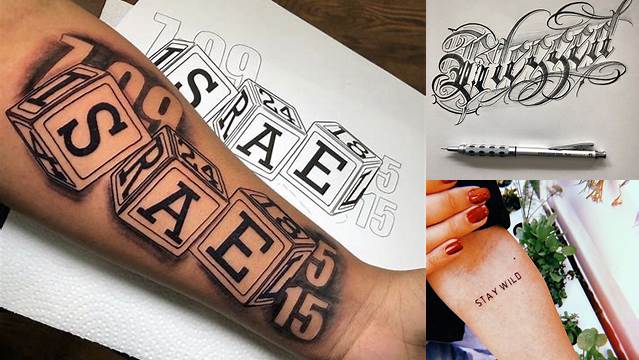
Block Letter Tattoo Fonts: Ideas & Inspiration
Hey guys! Thinking about getting some ink and love the bold look of block letters? You've come to the right place! Block letter tattoo fonts are a classic choice, offering a clean, strong, and timeless aesthetic. Whether you're going for a simple name, a powerful quote, or something more elaborate, the right block letter font can make all the difference. In this article, we're diving deep into the world of tattoo fonts block letters, exploring a ton of ideas, variations, and inspiration to help you find the perfect fit for your next tattoo.
1. Classic Block Letter Tattoo Fonts
Let's start with the basics, shall we? Classic block letter tattoo fonts are your go-to for a reason – they're clean, legible, and always in style. Think of these as the foundation of all block letter styles. These fonts often feature uniform thickness and a straightforward design, making them perfect for names, dates, or short phrases. The beauty of a classic block letter lies in its simplicity. It’s a font that speaks volumes without being overly flashy, making it a versatile choice for various tattoo placements and sizes. Choosing a classic font means opting for a timeless design that will look great for years to come. Whether you're getting your first tattoo or adding to your collection, a classic block letter is always a solid choice. The crisp lines and clear structure ensure that your message is delivered effectively and elegantly. Plus, these fonts are incredibly easy to read, which is a huge bonus when you want your tattoo to be instantly understood. Remember, a well-executed classic block letter tattoo can be just as impactful as a more intricate design.
2. Bold Block Letter Tattoo Styles
Ready to make a statement? Bold block letter tattoo fonts are your answer! These fonts are thicker, heavier, and command attention. They're perfect for larger tattoos where you want the lettering to really pop. Imagine a bold block letter tattoo across your chest or back – it’s powerful, confident, and undeniably cool. Bold fonts have an inherent strength about them, making them ideal for conveying strong messages or declarations. If you're using a single word or a short phrase, a bold font can amplify the impact. These styles often work exceptionally well in black ink, creating a high-contrast look against the skin. But don’t be afraid to experiment with colors or shading to add even more depth. Keep in mind that the size of your tattoo will influence how the bold letters appear. Larger tattoos can accommodate thicker lines, while smaller tattoos might need a slightly thinner bold font to prevent the letters from blurring together over time. When you want your tattoo to be seen and remembered, a bold block letter style is the way to go. It's a fantastic option for anyone who wants their ink to make a statement.
3. Narrow Block Letter Tattoo Designs
Not all block letters need to be wide and imposing. Narrow block letter tattoo designs offer a sleek and modern alternative. These fonts are characterized by their taller and thinner letterforms, making them ideal for fitting longer words or phrases into a smaller space. Think about using a narrow block letter font to ink a meaningful quote along your spine or ribs – it's a subtle yet striking effect. The elegance of a narrow font lies in its ability to convey information without taking up too much real estate on your skin. These styles often have a more refined appearance, making them a great choice for those who prefer a minimalist aesthetic. Narrow block letters can also be surprisingly versatile. They work well in both black and colored inks, and they can be easily combined with other tattoo elements, such as symbols or illustrations. However, it's important to consider the legibility of your tattoo when choosing a narrow font. If the letters are too close together or too thin, they might become difficult to read, especially as the tattoo ages. Your tattoo artist can help you select the perfect size and spacing to ensure your narrow block letter tattoo looks fantastic for years to come. If you’re going for a sophisticated and contemporary vibe, narrow block letters might just be your perfect match.
4. Wide Block Letter Tattoo Styles
On the flip side, wide block letter tattoo styles are all about making a big impact. These fonts feature broader letterforms, creating a bold and visually striking effect. They're perfect for shorter words or initials, where the width can really enhance the overall design. Imagine using a wide block letter font for your initials on your wrist or a single powerful word across your shoulders. The strength of a wide block letter comes from its solid, grounded presence. These fonts tend to exude confidence and stability, making them a popular choice for those who want their tattoo to feel substantial. Wide block letters also offer plenty of room for creativity. You can fill them with intricate patterns, shading, or even colors to create a unique and eye-catching design. However, keep in mind that wide letters can take up a lot of space, so it’s important to plan your tattoo placement carefully. Consider the contours of your body and how the letters will flow with your natural shape. A skilled tattoo artist can help you determine the optimal size and placement for your wide block letter tattoo. When you want your tattoo to have a bold and undeniable presence, wide block letters are the way to go.
5. Outline Block Letter Tattoo Fonts
Looking for something a little different? Outline block letter tattoo fonts offer a stylish and unique twist on the classic block letter design. These fonts feature the shape of the letters outlined in ink, with the inside left blank or filled with color or shading. It’s a great way to create a visually interesting tattoo without the heavy commitment of solid black ink. Outline block letters have a lighter, more airy feel compared to their solid counterparts. They can add a touch of sophistication and elegance to your tattoo, making them a versatile choice for various styles and placements. The beauty of an outline font is that it allows you to play with negative space. The contrast between the outlined letters and your skin creates a striking visual effect that can be incredibly eye-catching. You can also use the negative space to incorporate other design elements, such as patterns or textures, within the letters themselves. Outline block letters are a fantastic option for those who want a tattoo that stands out without being too overwhelming. They’re also a great choice for individuals with lighter skin tones, as the outline will create a clear and defined shape. If you're seeking a tattoo that’s both stylish and unique, outline block letters are definitely worth considering.
6. Shaded Block Letter Tattoo Designs
Adding shading to block letter tattoos can take them to the next level. Shading gives the letters depth and dimension, making them appear more three-dimensional and visually interesting. It’s a fantastic technique for adding a touch of realism or a subtle artistic flair to your tattoo. Imagine block letters that look like they're popping off your skin – that's the power of shading. Shading can be achieved using various techniques, from subtle gradients to bold, contrasting shadows. The type of shading you choose will depend on the overall style you're aiming for. Soft shading can create a more delicate and refined look, while bolder shading can add a dramatic and impactful effect. One popular technique is to shade the edges of the letters, creating the illusion of depth and highlighting the letterforms. You can also use shading to create a sense of texture or to mimic the look of metal or stone. The possibilities are endless! Shading can also help to enhance the legibility of your tattoo, especially if you’re using a more intricate font or have a lot of detail in your design. By adding shadows and highlights, you can make the letters stand out more clearly against your skin. If you want to elevate your block letter tattoo and give it a truly unique look, shading is a technique you should definitely explore.
7. Block Letter Tattoo Fonts with Serifs
Serifs are the little decorative strokes that extend from the ends of letters, and incorporating them into block letter tattoos can add a touch of classic elegance. Serifs can transform a simple block letter into something more sophisticated and refined. Think of fonts like Times New Roman – the serifs give the letters a formal and traditional feel. When used in tattoos, serifs can add a touch of timeless beauty. Block letter fonts with serifs are a great choice for those who want a tattoo that feels both classic and contemporary. They can be used to create a variety of different styles, from vintage-inspired designs to modern, minimalist pieces. The serifs themselves can range from subtle and delicate to bold and pronounced, allowing you to customize the font to suit your personal taste. One thing to consider when choosing a serif font for your tattoo is the size and placement of the letters. Serifs can be intricate details, so it’s important to ensure that they will be clearly visible and legible, especially if the tattoo is small. Your tattoo artist can help you select a serif font that will work well with your design and placement. If you’re looking for a block letter tattoo with a touch of sophistication and timeless appeal, consider incorporating serifs into your font choice.
8. Block Letter Tattoo Fonts without Serifs
On the other hand, block letter fonts without serifs offer a more modern and minimalist aesthetic. These fonts, also known as sans-serif fonts, are clean, simple, and highly legible. They’re a popular choice for contemporary tattoo designs that prioritize clarity and simplicity. Think of fonts like Arial or Helvetica – these sans-serif fonts are widely used for their clean lines and easy readability. In the world of tattoo fonts block letters, sans-serif styles can create a striking and impactful design. The absence of serifs gives these fonts a more streamlined and contemporary feel. They’re a great choice for those who prefer a clean and uncluttered look. Sans-serif block letters are also incredibly versatile. They work well in a variety of sizes and placements, and they can be easily combined with other design elements, such as symbols or illustrations. The simplicity of these fonts also makes them a great choice for those who want their tattoo to be easily understood at a glance. One thing to consider when choosing a sans-serif font is the overall weight and thickness of the letters. Thicker letters will create a bolder and more impactful design, while thinner letters will have a more delicate and refined appearance. Your tattoo artist can help you select the perfect weight for your sans-serif block letter tattoo. If you’re drawn to clean lines, modern aesthetics, and easy readability, sans-serif block letter fonts might be the perfect choice for your next tattoo.
9. Gothic Block Letter Tattoo Styles
For a darker and more dramatic look, gothic block letter tattoo styles are a fantastic choice. These fonts are characterized by their bold, angular lines and intricate details, evoking a sense of mystery and medieval flair. Think of the classic Old English font – its dramatic curves and sharp points are a hallmark of gothic lettering. In the world of tattoos, gothic block letters can create a powerful and striking design. Gothic fonts have a strong visual presence and are often associated with strength, rebellion, and individuality. They’re a popular choice for those who want their tattoo to make a bold statement. Gothic block letters can be used for a variety of different tattoo designs, from names and initials to quotes and meaningful phrases. They work particularly well for larger tattoos, where the intricate details of the font can be fully appreciated. When choosing a gothic font for your tattoo, it’s important to consider the legibility of the letters. Some gothic fonts can be quite ornate and difficult to read, especially if the tattoo is small. Your tattoo artist can help you select a gothic font that is both visually appealing and easy to decipher. If you’re drawn to the dramatic and mysterious, gothic block letter styles can be an excellent choice for your next tattoo.
10. Modern Block Letter Tattoo Fonts
Modern block letter tattoo fonts are all about sleek lines, geometric shapes, and contemporary aesthetics. These fonts often feature unique letterforms and innovative designs that push the boundaries of traditional block lettering. They’re a perfect choice for those who want a tattoo that feels fresh, stylish, and on-trend. Think of fonts that incorporate clean lines, sharp angles, and a sense of futuristic design. Modern block letters can range from minimalist and understated to bold and expressive, offering a wide range of options for your tattoo. One of the key characteristics of modern block letters is their emphasis on simplicity and clarity. These fonts often prioritize legibility, making them a great choice for those who want their tattoo to be easily read at a glance. However, modern fonts can also incorporate unique design elements that set them apart from more traditional styles. This might include unusual letter shapes, geometric accents, or unexpected negative space. When choosing a modern block letter font for your tattoo, it’s important to consider the overall style and aesthetic you’re aiming for. Do you want a tattoo that feels minimalist and understated, or something that’s more bold and expressive? Your tattoo artist can help you select a font that perfectly matches your vision. If you’re looking for a tattoo that’s stylish, contemporary, and a little bit different, modern block letter fonts are definitely worth exploring.
11. Vintage Block Letter Tattoo Styles
For a touch of nostalgia and old-school charm, vintage block letter tattoo styles are the way to go. These fonts evoke the look and feel of classic signage, vintage posters, and retro advertisements. They’re perfect for those who appreciate timeless design and want a tattoo with a sense of history. Think of fonts that incorporate distressed textures, aged effects, and classic letterforms from decades past. Vintage block letters often have a slightly weathered or worn appearance, giving them a unique and authentic feel. They can range from bold and industrial styles to more elegant and refined designs, offering a wide range of options for your tattoo. One of the key characteristics of vintage block letters is their ability to evoke a sense of nostalgia and sentimentality. These fonts can transport you back to a different era, adding a touch of character and personality to your tattoo. They’re a great choice for those who want their ink to tell a story or pay homage to a particular time period. When choosing a vintage block letter font for your tattoo, it’s important to consider the overall style and aesthetic you’re aiming for. Do you want a tattoo that feels rugged and industrial, or something that’s more elegant and refined? Your tattoo artist can help you select a font that perfectly captures the vintage vibe you’re after. If you’re drawn to the charm and character of yesteryear, vintage block letter styles can be a fantastic choice for your next tattoo.
12. Outline vs. Solid Block Letter Tattoos
Choosing between outline and solid block letter tattoos is a big decision that can significantly impact the look and feel of your ink. Both styles have their own unique advantages and aesthetics, so it’s important to weigh your options carefully before making a choice. Outline block letters offer a lighter, more airy feel. They create a subtle yet striking effect, allowing the negative space of your skin to become part of the design. This can be a great option for those who want a tattoo that’s visually interesting without being too overwhelming. Outline tattoos can also be a good choice for those with lighter skin tones, as the outline will create a clear and defined shape. Solid block letters, on the other hand, are bolder and more impactful. They offer a strong visual presence and can make a powerful statement. Solid tattoos are a classic choice for those who want their ink to really stand out. They can also be a good option for those with darker skin tones, as the solid fill will create a strong contrast against the skin. Ultimately, the choice between outline and solid block letter tattoos comes down to personal preference. Consider the overall style you’re aiming for, the placement of your tattoo, and your skin tone. Your tattoo artist can also provide valuable advice and help you make the best decision for your unique situation. Whether you go for the subtle elegance of an outline or the bold impact of a solid fill, block letter tattoos are a timeless and versatile choice.
13. Block Letter Tattoo Placement Ideas
Where you place your block letter tattoo can be just as important as the font you choose. The placement can affect the overall look and feel of your ink, as well as how easily it’s seen and read. Let's explore some popular placement ideas: Forearm tattoos are a classic choice for block letters. They’re easily visible and offer a good amount of space for longer words or phrases. Wrist tattoos are another popular option, especially for smaller names or initials. However, keep in mind that wrist tattoos can fade more quickly due to frequent washing and movement. Back tattoos, particularly across the upper back or shoulders, are a great choice for larger block letter designs. This placement offers a wide canvas and allows for intricate shading and detailing. Chest tattoos can be a bold and impactful choice, especially for single words or short phrases. However, chest tattoos can be more painful due to the sensitivity of the area. Rib tattoos are a more discreet option that can be easily concealed. They’re a good choice for longer quotes or phrases, but can also be more painful due to the proximity to the ribs. Leg tattoos, whether on the thigh, calf, or ankle, offer a versatile placement option. Block letters can look great on the leg, especially when incorporated into a larger design. Ultimately, the best placement for your block letter tattoo will depend on your personal style, the size and design of your tattoo, and your pain tolerance. Consider the message you want to convey and how you want your ink to be perceived. Your tattoo artist can help you explore different placement options and choose the perfect spot for your block letter tattoo.
14. Combining Block Letters with Other Tattoo Elements
One of the best ways to create a truly unique block letter tattoo is to combine the lettering with other design elements. This can add visual interest, depth, and personal meaning to your ink. Think about incorporating symbols, images, or even other font styles into your block letter design. Here are a few ideas to get you started: Adding a floral element, such as roses or lilies, can soften the boldness of block letters and create a more feminine or romantic feel. Incorporating geometric shapes, such as triangles or circles, can add a modern and artistic touch to your block letter tattoo. Combining block letters with a more script-style font can create an interesting contrast and add visual complexity to your design. Using a meaningful symbol, such as a heart, star, or cross, can add personal significance to your block letter tattoo. Adding shading or texture to the letters can create depth and dimension, making the tattoo appear more three-dimensional. The possibilities are endless when it comes to combining block letters with other tattoo elements. The key is to find a balance between the lettering and the other design elements, ensuring that they complement each other and create a cohesive and visually appealing tattoo. Work closely with your tattoo artist to brainstorm ideas and create a design that’s truly unique and meaningful to you.
15. Block Letter Tattoo Ideas for Names
Getting a name tattooed in block letters is a classic and timeless choice. Whether it’s your own name, the name of a loved one, or the name of someone who’s inspired you, block letters offer a bold and legible way to honor them. There are many creative ways to incorporate names into your tattoo fonts block letters. Consider using a bold block letter font for a strong and impactful look. This can be a great choice for larger name tattoos, such as those across the chest or back. Opt for a more delicate block letter font, such as a narrow or outlined style, for a more subtle and elegant look. This can be a good choice for smaller name tattoos, such as those on the wrist or ankle. Incorporate a meaningful symbol or image alongside the name. For example, you could add a flower, heart, or star to personalize the design. Use shading or texture to add depth and dimension to the letters. This can make the name appear more three-dimensional and visually interesting. Consider the placement of the name tattoo. Forearms, wrists, backs, chests, and legs are all popular options. Think about the size and style of the tattoo, as well as your personal preferences, when choosing a placement. Ultimately, the best block letter tattoo idea for a name is one that’s meaningful and personal to you. Work closely with your tattoo artist to create a design that you’ll love for years to come.
16. Quote Tattoos in Block Letters
Quotes can be powerful and meaningful, and using block letter tattoo fonts to ink them can make them even more impactful. Whether it’s a favorite saying, an inspiring message, or a personal motto, block letters offer a bold and legible way to display your chosen words. Here are some tips for designing quote tattoos in block letters: Choose a font that complements the tone and style of the quote. A bold, gothic font might be a good choice for a powerful quote, while a more delicate, sans-serif font might be better suited for an inspiring message. Consider the length of the quote when choosing a font and placement. Longer quotes will require more space, so you might need to opt for a smaller font or a larger placement area, such as the back or chest. Think about breaking up the quote into multiple lines to improve readability and create a more visually appealing design. Use different font sizes or styles to emphasize certain words or phrases within the quote. This can help to draw attention to the most important parts of the message. Incorporate symbols or images that relate to the meaning of the quote. This can add depth and personal significance to the tattoo. Pay attention to the spacing between letters and words. Proper spacing is essential for ensuring that the quote is easy to read and understand. Quote tattoos in block letters can be a powerful way to express your beliefs, values, and passions. Work closely with your tattoo artist to create a design that’s both meaningful and visually striking.
17. Initials and Monogram Block Letter Tattoos
Initials and monograms are a classic and understated choice for tattoo fonts block letters. They offer a subtle yet stylish way to represent your name, the name of a loved one, or a meaningful combination of letters. Block letters are particularly well-suited for initials and monograms, as they provide a clean and legible design that’s easy to read and understand. Here are some ideas for designing initial and monogram tattoos in block letters: Choose a font that reflects your personal style. A bold block letter font can create a strong and impactful look, while a more delicate font can add a touch of elegance. Consider the placement of the initials or monogram. Wrists, ankles, and the back of the neck are all popular choices for smaller initial tattoos. Use different font sizes or styles for the different letters within the monogram. This can create visual interest and help to distinguish the letters. Incorporate decorative elements, such as swirls, flourishes, or geometric shapes, to add a touch of personality to the design. Use shading or texture to add depth and dimension to the letters. This can make the initials or monogram appear more three-dimensional and visually interesting. Think about the spacing between the letters. Proper spacing is essential for ensuring that the initials or monogram are easy to read and understand. Initials and monogram tattoos in block letters can be a timeless and elegant way to represent yourself or someone you care about. Work closely with your tattoo artist to create a design that’s both meaningful and visually appealing.
18. Block Letter Tattoo Fonts for Dates
Dates are another popular choice for tattoo fonts block letters. Whether it’s a birth date, anniversary, or a significant historical event, block letters offer a clear and concise way to mark a special occasion. Block letter tattoos for dates are a great way to commemorate important moments in your life. Here are some tips for designing date tattoos in block letters: Choose a font that’s easy to read and understand. Clear and simple block letter fonts are ideal for date tattoos. Consider the format of the date. You can use numerals, Roman numerals, or even spell out the month in letters. Think about the placement of the date tattoo. Wrists, ankles, and ribs are all popular choices for smaller date tattoos. Incorporate other design elements, such as symbols or images, that relate to the meaning of the date. For example, you could add a flower for a birth date or a ring for an anniversary. Use shading or texture to add depth and dimension to the numerals or letters. This can make the date tattoo appear more visually interesting. Consider the spacing between the numerals or letters. Proper spacing is essential for ensuring that the date is easy to read and understand. Block letter tattoos for dates can be a meaningful way to remember special moments in your life. Work closely with your tattoo artist to create a design that’s both personal and visually appealing.
19. Small Block Letter Tattoos
Small block letter tattoos can be incredibly impactful, even though they are tiny. They are perfect for those who want a subtle yet meaningful piece of ink. These tattoos often consist of a single word, initial, or date, making them ideal for discreet placement. When considering a small block letter tattoo, font choice is crucial. Opt for a font that remains legible even at a small size. Simple sans-serif fonts often work best, as they have clean lines and avoid intricate details that can blur together. Placement is also key. Popular spots for small block letter tattoos include the wrist, ankle, behind the ear, and fingers. These locations are easily visible but can also be covered if desired. Despite their size, small block letter tattoos can carry significant weight. They can serve as a reminder of a personal mantra, a tribute to a loved one, or a symbol of an important life event. The simplicity of block letters lends itself well to this format, allowing the message to shine through without overwhelming the space. Whether you choose a bold statement or a subtle reminder, a small block letter tattoo can be a powerful form of self-expression. It’s a timeless design that will continue to resonate with you for years to come.
20. Large Block Letter Tattoos
On the opposite end of the spectrum, large block letter tattoos make a bold statement. These tattoos command attention and are perfect for those who want their ink to be a focal point. Large block letters are ideal for displaying impactful words, phrases, or even entire quotes. When opting for a large block letter tattoo, placement is paramount. The back, chest, and thighs offer ample space for these designs. Consider the contours of your body and how the letters will flow with your natural shape. A skilled tattoo artist can help you determine the optimal size and placement to ensure your tattoo looks balanced and visually appealing. Font choice is also important. Bold, thick block letters work best for large tattoos, as they create a strong visual presence. Shading and detailing can further enhance the impact, adding depth and dimension to the design. Large block letter tattoos are not for the faint of heart. They are a commitment to a message or aesthetic that you want to prominently display. However, when executed well, these tattoos can be incredibly striking and expressive. They serve as a powerful form of self-expression, allowing you to wear your thoughts and beliefs on your skin.
21. Block Letter Tattoo Fonts for Men
Block letter tattoos are a popular choice for men, offering a masculine and timeless aesthetic. The strong, clean lines of block letters lend themselves well to a variety of styles, from classic and understated to bold and edgy. When choosing block letter fonts for men's tattoos, consider the overall message and style you want to convey. Bold, sans-serif fonts often create a powerful and assertive look, while more refined fonts can add a touch of sophistication. Placement can also play a role in the masculinity of the tattoo. Popular spots for men's block letter tattoos include the upper back, chest, forearms, and biceps. These locations offer ample space for larger designs and showcase the ink effectively. Block letter tattoos can be used to display names, dates, quotes, or any other meaningful words or phrases. The versatility of block letters allows for endless customization, ensuring that your tattoo is a true reflection of your personality and beliefs. Whether you opt for a simple and minimalist design or a more intricate and detailed piece, block letter tattoos are a timeless choice for men. They are a symbol of strength, resilience, and individuality, making them a powerful form of self-expression.
22. Block Letter Tattoo Fonts for Women
While often associated with masculinity, block letter tattoos can also be a beautiful and empowering choice for women. The key is to choose a font and design that complements your personal style and aesthetic. When selecting block letter fonts for women's tattoos, consider incorporating softer elements or more delicate designs. For example, pairing block letters with floral motifs or using a thinner, more refined font can create a feminine and elegant look. Placement can also play a role in the overall aesthetic. Popular spots for women's block letter tattoos include the wrists, ankles, ribs, and upper back. These locations offer a balance between visibility and discretion, allowing you to showcase your ink while maintaining a sense of elegance. Block letter tattoos can be used to display names, quotes, or any other meaningful words or phrases. The versatility of block letters allows for a wide range of creative expression, ensuring that your tattoo is a true reflection of your personality. Whether you opt for a bold statement or a subtle reminder, block letter tattoos can be a powerful form of self-expression for women. They are a symbol of strength, resilience, and individuality, making them a timeless and meaningful choice.
23. Block Letter Fonts in Different Languages
Block letter tattoos aren't limited to just English! Exploring different languages opens up a whole new world of possibilities for your ink. Whether you want to honor your heritage, express your love for a particular culture, or simply find a more unique way to say something meaningful, using a different language can add a special touch to your block letter tattoo. When choosing a language, consider the overall aesthetic and meaning you want to convey. Some languages, like Latin or Greek, have a classic and timeless feel, while others, like Japanese or Arabic, offer a more exotic and artistic flair. It’s crucial to ensure the accuracy of your chosen phrase or word. Double-check the spelling and grammar with a native speaker or a reliable online resource to avoid any embarrassing mistakes. Font choice is also important when working with different languages. Not all fonts are compatible with all character sets, so you’ll need to find a font that supports the language you’ve chosen. Consult with your tattoo artist to ensure the font you select is legible and aesthetically pleasing in the target language. Block letter tattoos in different languages can be a beautiful and meaningful way to express your identity and connect with your heritage. They add a layer of depth and complexity to your ink, making it truly unique and personal.
24. The Importance of a Good Tattoo Artist for Block Letters
When it comes to block letter tattoos, choosing the right tattoo artist is absolutely crucial. The clean lines and precise shapes of block letters demand a high level of skill and attention to detail. An experienced tattoo artist can make the difference between a stunning piece of art and a disappointing mess. Look for an artist who has a strong portfolio showcasing their work with lettering and linework. Pay close attention to the consistency of the lines, the spacing between the letters, and the overall symmetry of the designs. A skilled artist will have a steady hand and a keen eye for detail, ensuring that your block letter tattoo is crisp, clean, and legible. Communication is also key. You want an artist who is willing to listen to your ideas, offer helpful suggestions, and collaborate with you to create the perfect design. Don’t hesitate to ask questions and express your concerns. A good artist will be happy to address your questions and work with you to ensure you’re completely satisfied with the plan. The placement of your block letter tattoo is another factor to consider. An experienced artist can advise you on the best placement for your design, taking into account the contours of your body and the size and shape of the letters. They can also help you avoid areas that are prone to fading or distortion. Choosing the right tattoo artist is an investment in the quality and longevity of your ink. Take the time to do your research, find a skilled artist whose style aligns with your vision, and you’ll be rewarded with a block letter tattoo that you’ll love for years to come.
25. Aftercare Tips for Block Letter Tattoos
Proper aftercare is essential for ensuring that your block letter tattoo heals properly and looks its best for years to come. Block letters, with their clean lines and solid fills, require careful attention during the healing process to prevent fading, blurring, or infection. Here are some important aftercare tips to follow: Keep your tattoo clean. Gently wash the tattooed area with mild, fragrance-free soap and warm water two to three times a day. Avoid harsh soaps, scented products, and abrasive scrubbing. Pat the area dry with a clean towel. Avoid rubbing, as this can irritate the skin. Apply a thin layer of tattoo aftercare ointment or moisturizer. This will help keep the skin hydrated and prevent it from drying out. Follow your tattoo artist's recommendations for the best product to use. Avoid prolonged exposure to sunlight. Sunburn can damage your new tattoo and cause it to fade. If you must be in the sun, cover the tattoo with loose-fitting clothing or apply a sunscreen specifically designed for tattoos. Avoid soaking your tattoo in water. This means no swimming, baths, or prolonged showers until the tattoo is fully healed. Soaking can increase the risk of infection and cause the ink to leach out. Don't pick or scratch your tattoo. It's normal for tattoos to itch during the healing process, but picking or scratching can damage the skin and lead to scarring. Let the scabs fall off naturally. Wear loose-fitting clothing. Tight clothing can rub against your new tattoo and cause irritation. Choose breathable fabrics that won't trap moisture. Follow these aftercare tips diligently, and you'll help your block letter tattoo heal beautifully and maintain its crisp, clean lines for years to come.
26. Block Letter Tattoo Styles That Age Well
Thinking long-term about your tattoo is crucial, and certain block letter tattoo styles tend to age better than others. The crisp lines and solid shapes of block letters generally hold up well over time, but some design choices can further enhance the longevity of your ink. Simple, bold block letters with clean lines are a classic choice that tends to age gracefully. Avoid overly intricate designs or delicate fonts, as these can blur or fade over time. Sans-serif fonts, with their clean and uncluttered appearance, often hold up better than serif fonts. The serifs, or decorative strokes at the ends of the letters, can become less defined as the tattoo ages. Sufficient spacing between the letters is essential for long-term legibility. Avoid cramming letters too closely together, as they can bleed together over time. Proper ink saturation is also crucial. A skilled tattoo artist will ensure that the ink is evenly distributed and deeply embedded in the skin, which helps to prevent fading. Placement plays a role in how well a tattoo ages. Areas that experience a lot of friction or sun exposure, such as the hands, feet, and neck, tend to fade more quickly. Consider placing your block letter tattoo on an area that is less prone to these factors. Regular moisturizing and sun protection are essential for preserving the vibrancy of your tattoo. Keep your skin hydrated and protect it from harmful UV rays, and your block letter tattoo will continue to look its best for years to come. By choosing a timeless design, working with a skilled artist, and following proper aftercare, you can ensure that your block letter tattoo remains a cherished piece of art for a lifetime.
27. The Cost of Block Letter Tattoos
The cost of a block letter tattoo can vary widely depending on several factors. Understanding these factors can help you budget for your ink and ensure you're getting a fair price. The size and complexity of the tattoo are major determinants of cost. Larger tattoos and those with intricate details will naturally require more time and ink, and therefore cost more. The tattoo artist's experience and reputation also play a role. Highly skilled and in-demand artists typically charge higher rates. The location of the tattoo studio can also influence pricing. Studios in major cities or upscale areas may have higher overhead costs and charge accordingly. The number of colors used in the tattoo can also affect the price. Color tattoos generally cost more than black and gray tattoos due to the added expense of the ink and the extra time required for application. Many tattoo artists charge by the hour, while others charge a flat rate per tattoo. Be sure to discuss pricing with your artist upfront so you know what to expect. It’s important to choose a skilled and reputable tattoo artist, even if it means paying a bit more. A well-executed tattoo is an investment in yourself and will last a lifetime. Don’t be afraid to ask for a quote from several different artists to compare pricing. However, don’t base your decision solely on cost. The quality of the artwork and the artist’s experience are just as important. Remember, a block letter tattoo is a permanent piece of art, so it’s worth paying for quality.
28. Finding Inspiration for Your Block Letter Tattoo Design
Feeling stuck on your block letter tattoo design? Don't worry, there are tons of places to find inspiration! From classic sources to modern trends, you can discover ideas that spark your creativity and help you visualize your perfect ink. Online tattoo galleries and social media platforms like Instagram and Pinterest are treasure troves of tattoo inspiration. Browse through thousands of designs, save your favorites, and identify common themes or styles that resonate with you. Tattoo magazines and books are another great resource for inspiration. They often feature a curated selection of high-quality tattoos and can help you discover new artists and styles. Visit tattoo conventions and shows to see artists in action and browse their portfolios in person. This can be a great way to connect with talented artists and get a sense of their individual styles. Look to typography and graphic design for inspiration. Explore different fonts, lettering styles, and layout techniques to find a block letter aesthetic that appeals to you. Draw inspiration from your own life experiences, interests, and passions. Think about meaningful words, quotes, symbols, or imagery that you want to incorporate into your tattoo design. Don’t be afraid to experiment and try new things. Sketch out your ideas, play with different fonts and layouts, and see what resonates with you. Remember, your block letter tattoo is a personal expression of yourself, so it should reflect your unique style and personality. Take your time, gather inspiration from various sources, and work closely with your tattoo artist to create a design that you’ll love for years to come.
29. Common Mistakes to Avoid with Block Letter Tattoos
Block letter tattoos, while seemingly simple, can be prone to certain mistakes if not planned and executed carefully. Avoiding these common pitfalls can help ensure that your tattoo looks its best and stands the test of time. One of the biggest mistakes is choosing a font that is too small or intricate. Fine lines and small details can blur over time, making the letters difficult to read. Opt for a bolder, simpler font that will remain legible as the tattoo ages. Incorrect spelling or grammar is another common error. Always double-check the wording of your tattoo with a trusted source before getting inked. Insufficient spacing between the letters can also cause problems. Letters that are too close together can bleed together over time, creating a jumbled mess. Work with your tattoo artist to ensure adequate spacing for long-term legibility. Poor placement can also detract from the overall appearance of your tattoo. Consider the contours of your body and choose a placement that complements the design. Avoid areas that are prone to friction or distortion, such as the hands and feet. Fading or blurring can occur if the tattoo is not properly cared for during the healing process. Follow your tattoo artist’s aftercare instructions diligently, and protect your tattoo from sun exposure. Choosing an inexperienced or unskilled tattoo artist is perhaps the biggest mistake of all. A skilled artist will have a steady hand, a keen eye for detail, and a thorough understanding of typography and tattooing techniques. By being aware of these common mistakes and taking steps to avoid them, you can ensure that your block letter tattoo is a source of pride for years to come.
30. The Future of Block Letter Tattoo Styles
The world of block letter tattoos is constantly evolving, with new styles and trends emerging all the time. While the classic block letter aesthetic remains timeless, tattoo artists are finding innovative ways to push the boundaries of this traditional style. One trend is the incorporation of mixed fonts and lettering styles. Combining block letters with script fonts or other decorative elements can create visually interesting and dynamic designs. The use of negative space and outline techniques is also gaining popularity. These styles offer a lighter, more airy feel compared to solid block letters, and can create striking visual effects. Geometric and minimalist designs are another emerging trend. These tattoos often feature clean lines, simple shapes, and a focus on negative space. The use of color in block letter tattoos is also becoming more prevalent. Bold, vibrant colors can add a playful and modern touch to this classic style. 3D block letter tattoos are pushing the boundaries of realism. These designs use shading and perspective to create the illusion of depth and dimension. Technology is also playing a role in the future of block letter tattoos. Digital design tools are allowing artists to create more precise and intricate lettering, and new tattoo inks and techniques are improving the longevity and vibrancy of tattoos. The future of block letter tattoos is bright, with endless possibilities for creativity and innovation. Whether you prefer a classic or contemporary style, there’s a block letter tattoo design out there for everyone. By staying informed about the latest trends and working with a skilled artist, you can create a unique and timeless piece of art that you’ll cherish for a lifetime.